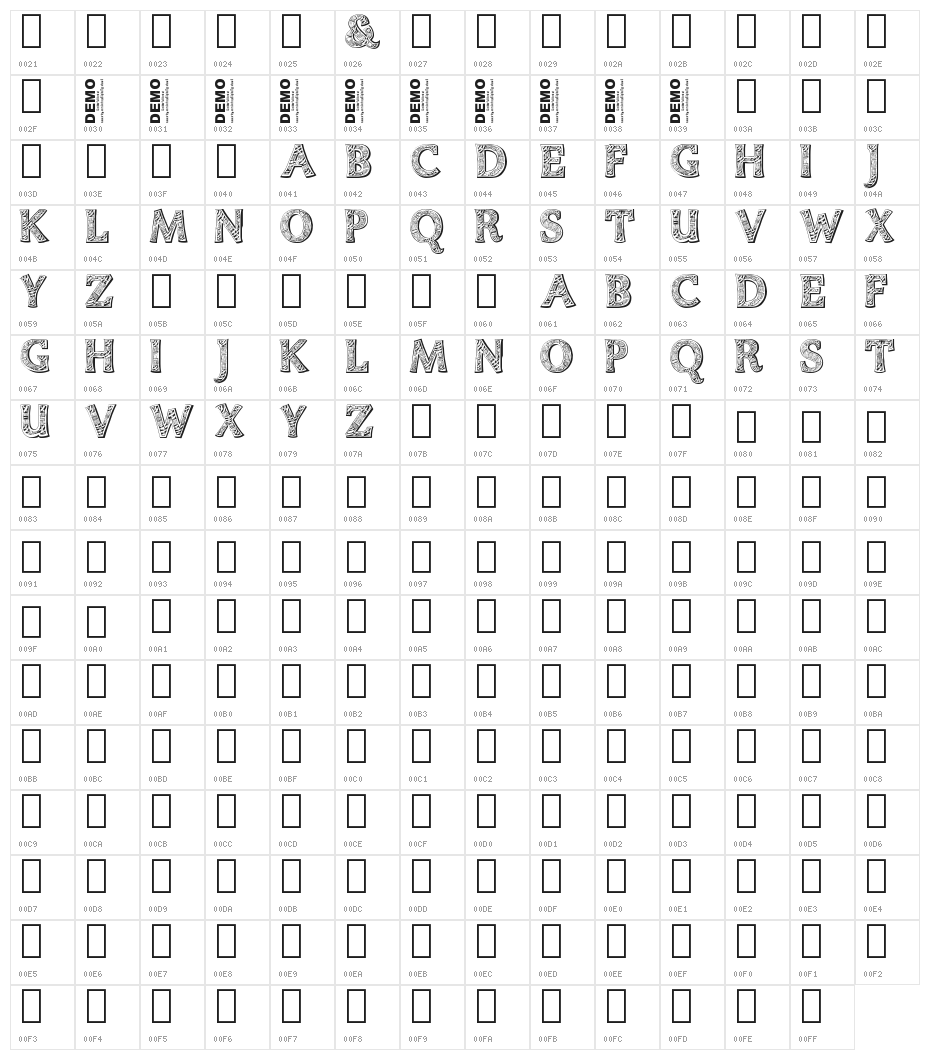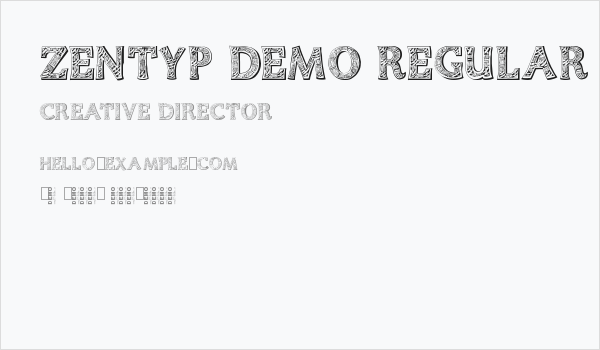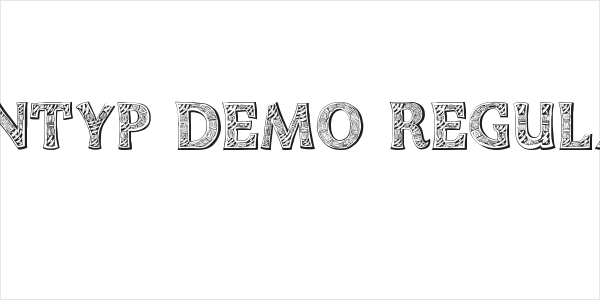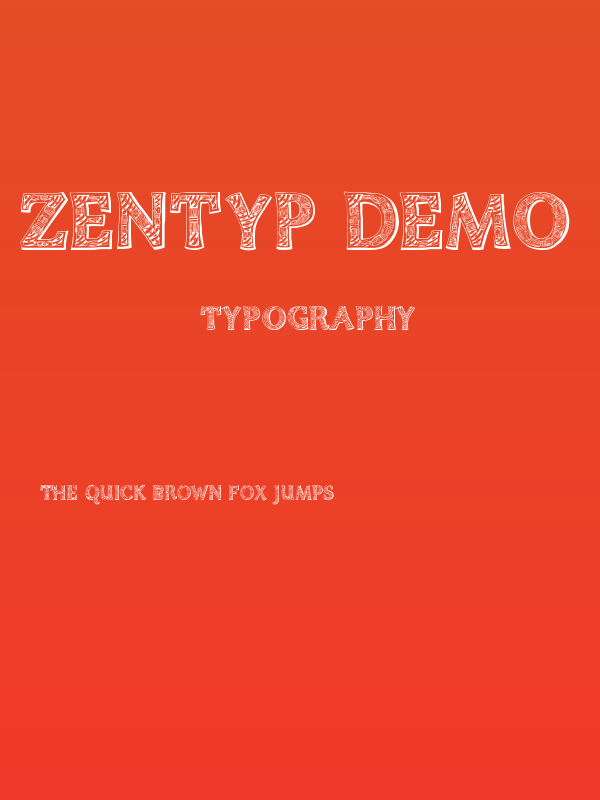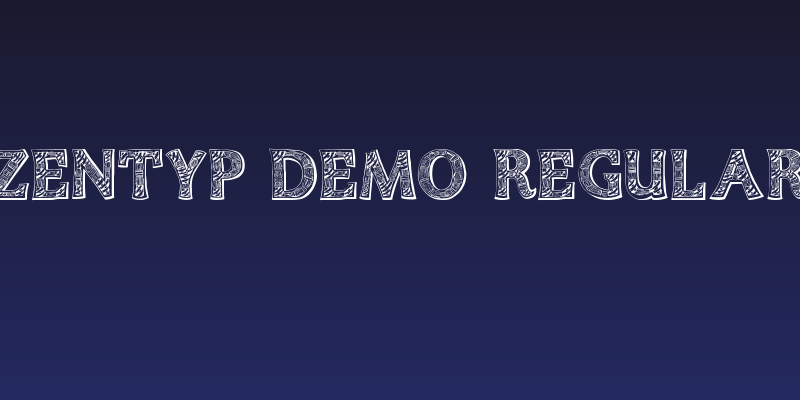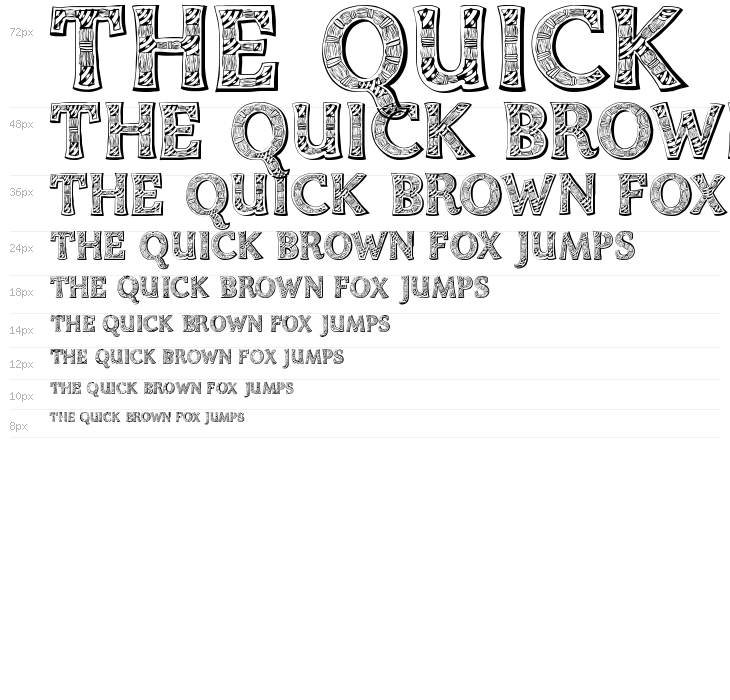
Zentyp Demo Regular Font
Zentyp Demo Regular Description
This font features a decorative style with intricate patterns filling each character, giving it a unique and artistic appearance. The uppercase letters are bold and prominent, with a consistent design that includes detailed line work within the letterforms. The font has a vintage feel, reminiscent of classic ornamental typography, making it stand out in any design. The characters are evenly spaced, ensuring readability despite the complex internal designs. This font is ideal for projects that require a touch of elegance and creativity, such as invitations, posters, or branding materials.